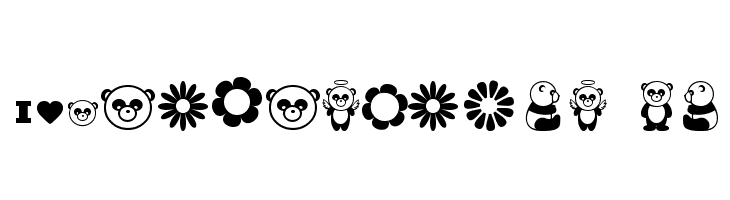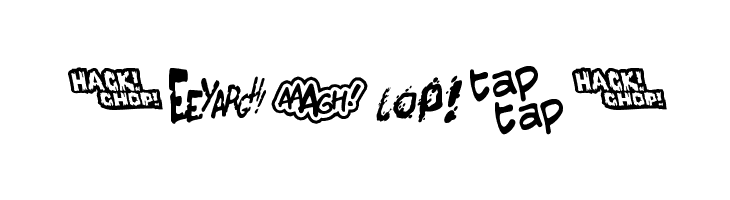
A bold, dynamic comic book style font with exaggerated letterforms.
Illustrative font featuring drama and theater motifs.
Automotive-themed pictorial display font using car parts and tools for each character.
A playful collection of hand-drawn doodle symbols with a whimsical style.
A playful, panda-themed decorative font with whimsical illustrations.